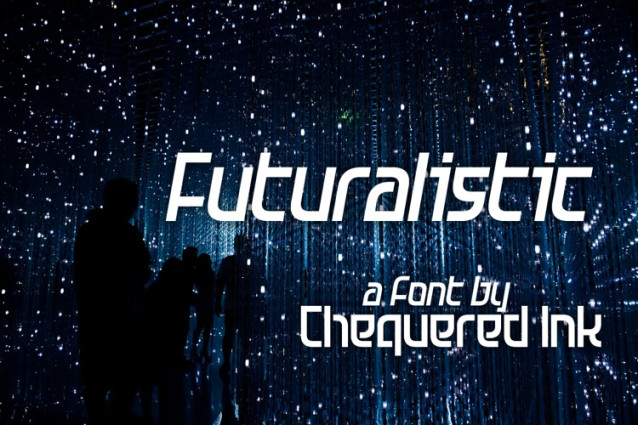
Futuralistic Font
Futuristic Font is a modern display typeface inspired by sci-fi aesthetics, digital innovation, and the vision of tomorrow. With its sleek geometric shapes, sharp edges, and dynamic curves, this font delivers a strong technological feel while maintaining excellent readability.
Perfect for branding, gaming, technology projects, movie posters, UI designs, and futuristic visual concepts, Futuristic adds a bold and cutting-edge identity to any design. Its clean structure and cyber-inspired style make it ideal for creators who want to express innovation, speed, and modern sophistication.
Whether used for headlines, logos, or digital interfaces, Futuristic creates a powerful visual impact that instantly captures attention and brings a sense of the future into your work.